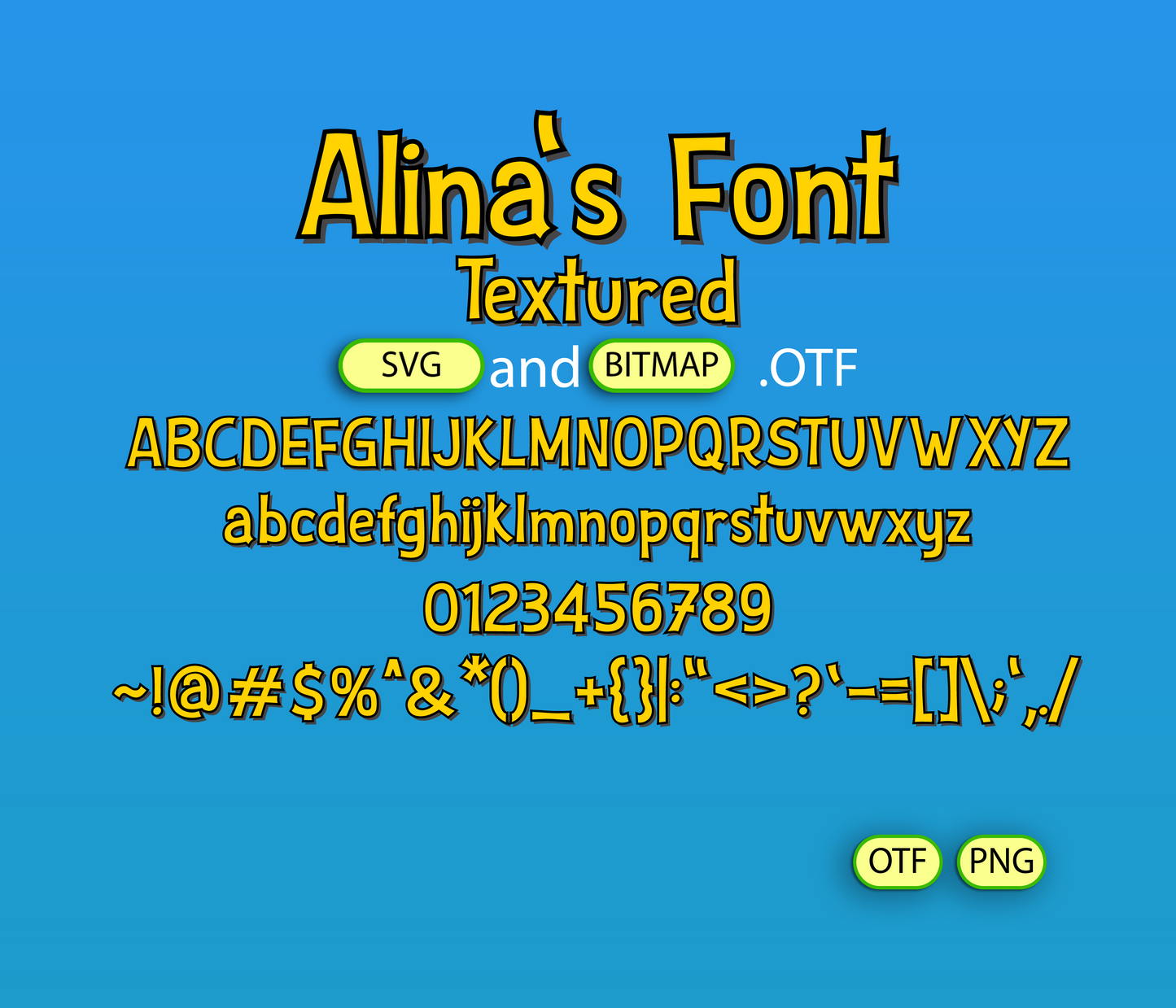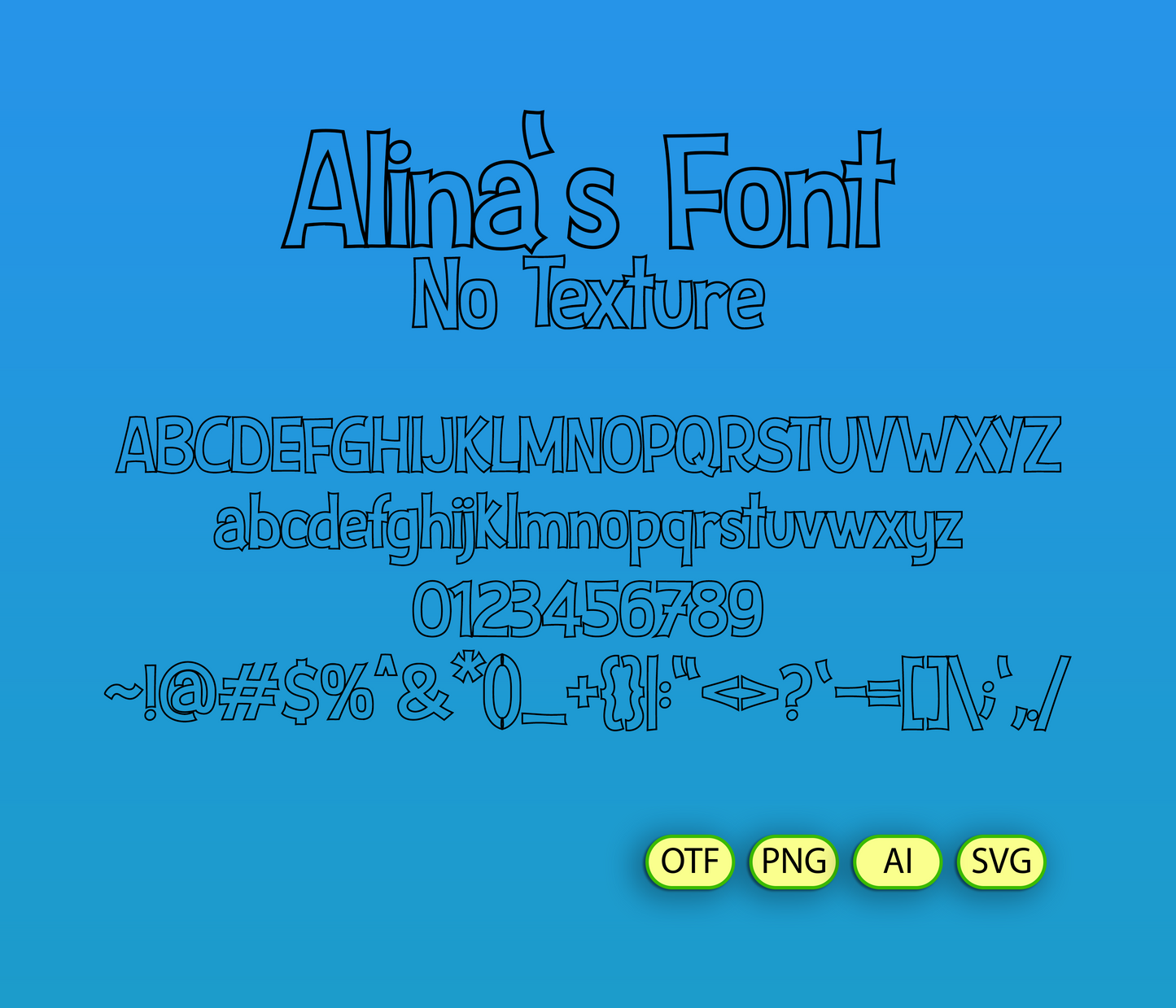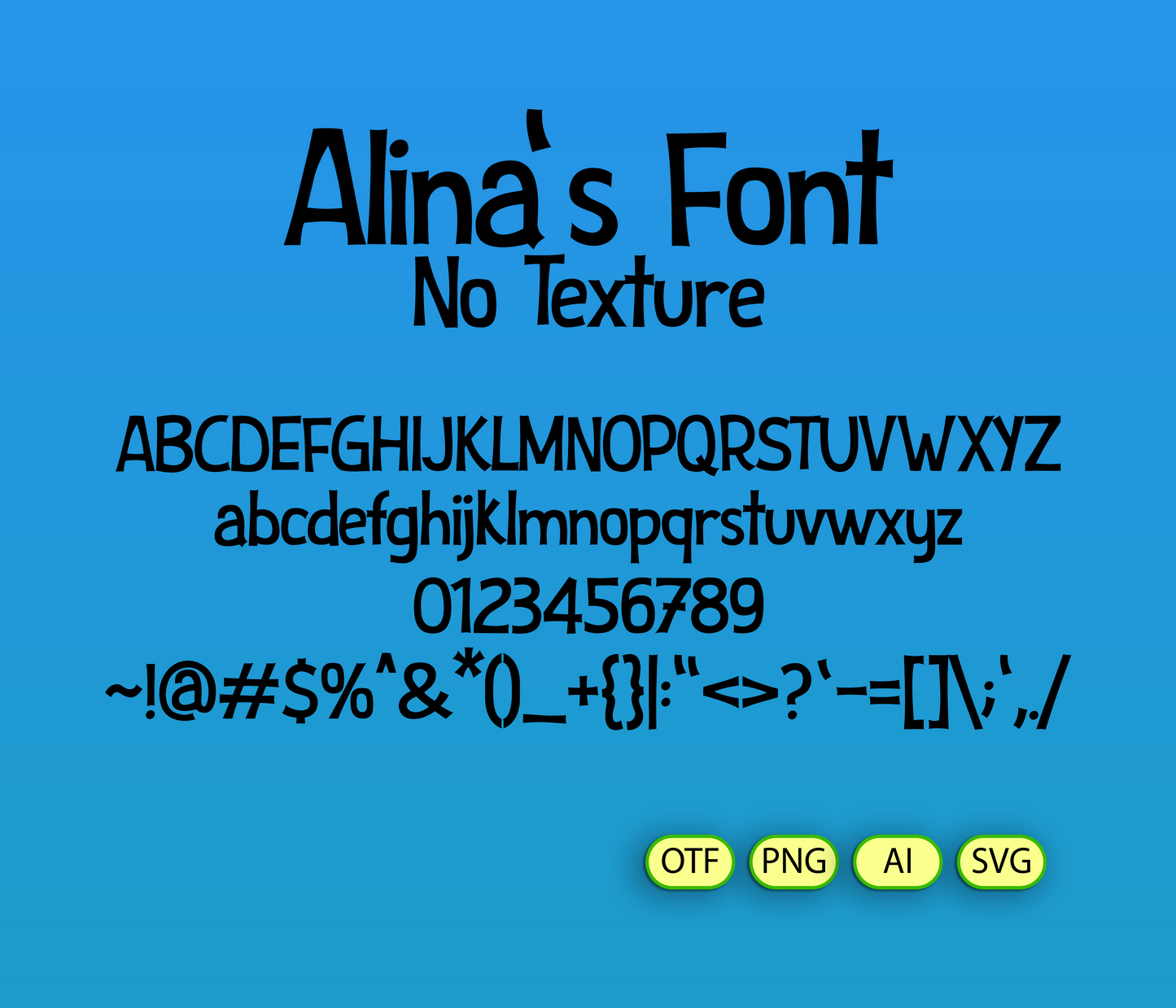
Timeless Toons Font Textured
Relive the Fun with the Timeless Toons Font
Step into the endearing world of Timeless Toons with our custom-designed font. This font captures the essence of the beloved comic characters. Each character in this font embodies the simplicity, warmth, and humor that Timeless Toons is known for, making it perfect for projects that aim to evoke nostalgia and the joyous spirit of these iconic characters.
What Font is Timeless Toons Font?
Imagine a typeface that encapsulates the comic's classic, hand-drawn style. Our Timeless Toons font is carefully crafted to reflect the playful and heartfelt qualities of the original comic strips. It includes an extensive character set, featuring alphabets, numbers, and special symbols, making it a versatile choice for a wide range of design projects, from nostalgic memorabilia to modern creative endeavors.
The Timeless Toons font is versatile and ideal for various creative and commemorative applications:
1. Comic Book and Graphic Novel Art: Enhance comic strips and graphic novels with a font that reflects the classic Timeless Toons style.
2. Themed Party Invitations: Create charming invitations for Timeless Toons-themed parties or events.
3. Merchandise Design: Perfect for designing t-shirts, mugs, and other merchandise that resonate with fans of the comic.
4. Digital Content and Social Media: Use the font to add a nostalgic touch to websites, blogs, and social media posts.
5. Educational Materials: Incorporate the font into teaching resources, especially for lessons on storytelling or comic art.
6. Greeting Cards and Stationery: Design personalized stationery, greeting cards, or gift tags with a whimsical Timeless Toons flair.
7. Promotional Materials: Use in marketing and advertising materials for events or products related to comics and animation.
8. Interior Decor: Create wall art, decals, or decorations for children's rooms or playful spaces.
9. Event Signage: Develop eye-catching signs and banners for comic conventions, book fairs, or themed events.
10. Creative Art Projects: Ideal for scrapbooking, crafting, and other artistic projects inspired by the Timeless Toons gang.
• Textured and FREE Non-Textured Variants: Each font is available in both a playful, textured style and a clean, non-textured version for different design scenarios.
• Comprehensive Character Set: Offers a wide range of characters for complete design versatility.
The Timeless Toons font is more than just a typeface; it's a celebration of the enduring charm and humor of one of the world's most beloved comic strips.